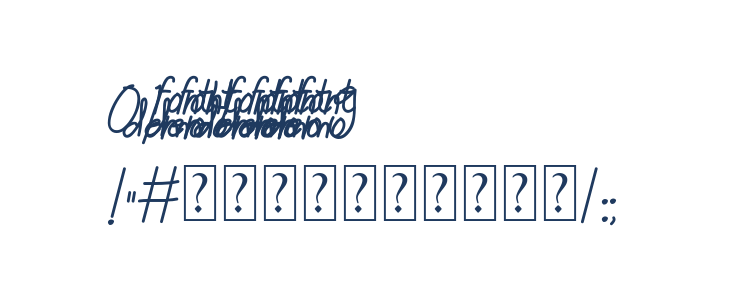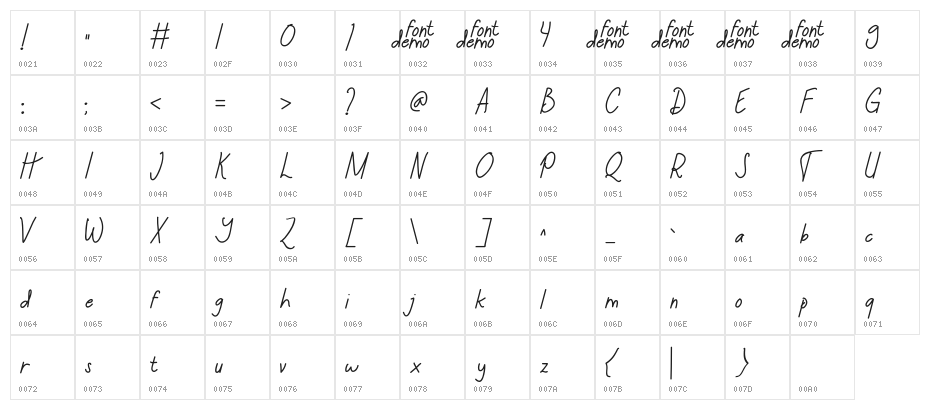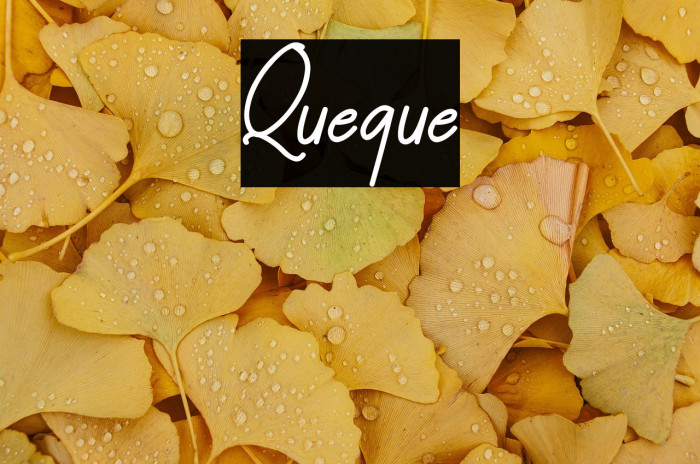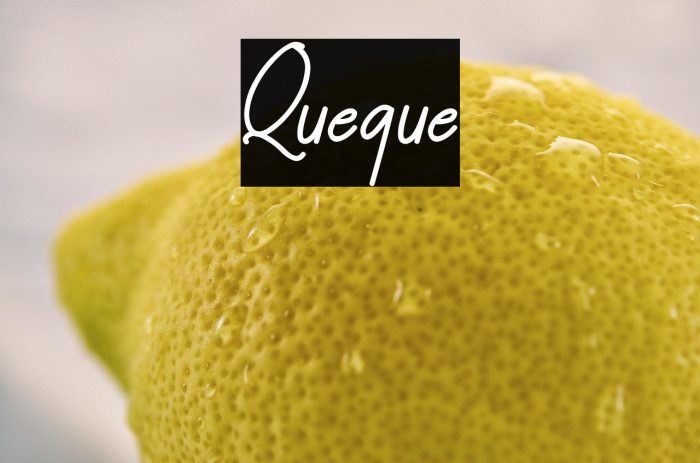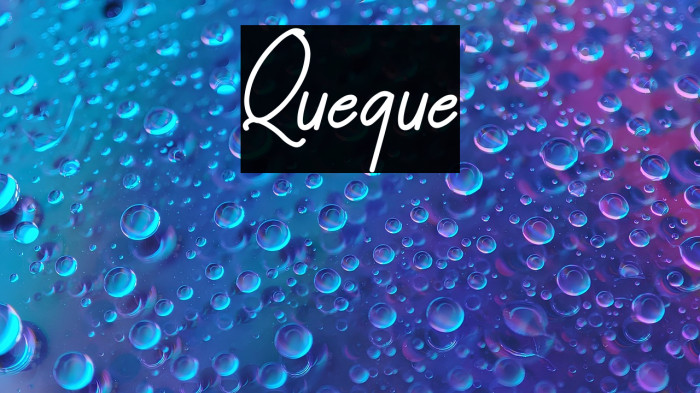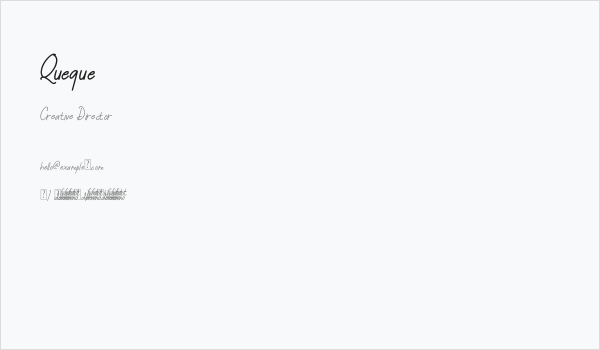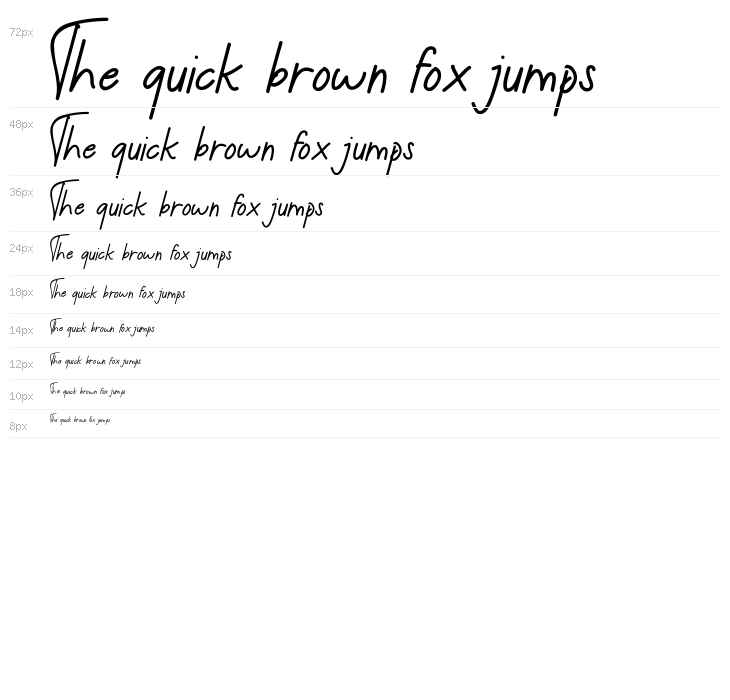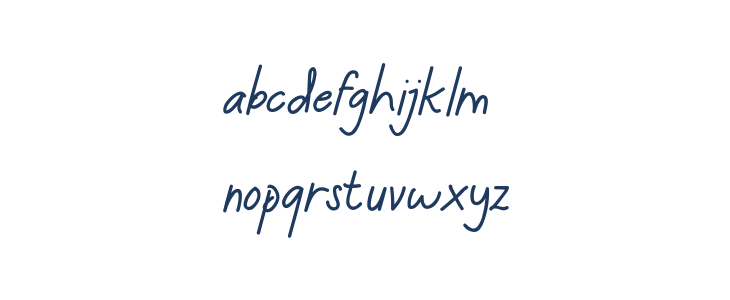
Queque Font
Queque Description
This font features a handwritten style with a casual and flowing appearance. The uppercase letters are tall and slightly narrow, with a playful slant that adds a sense of movement. The lowercase letters maintain a consistent style, complementing the uppercase with their rounded and smooth curves. The numbers are clear and legible, matching the overall aesthetic of the font. Special characters are included, maintaining the same handwritten charm. The font's informal and friendly look makes it suitable for projects that require a personal touch.
| Overall Style | Casual |
| Use Case | Logos, Headlines, Invitations |
| Proposed Projects | Ideal for greeting cards, invitations, personal branding, and social media graphics. |